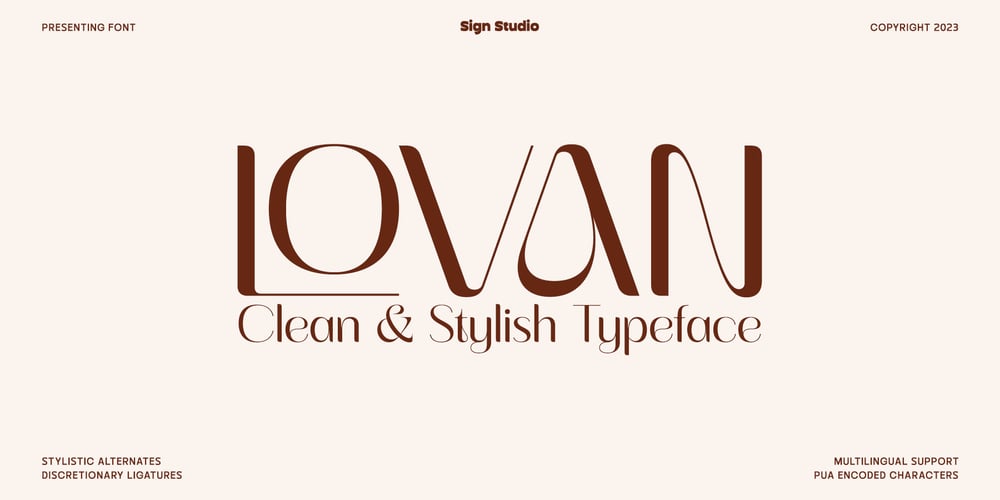
Lovan
Lovan font
Lovan Font Family was designed by Sugi Yanto and published by Sign Studio. Lovan contains 1 styles and family package options. Lovan will bring an elegant, romantic and warm feeling of love to your design project. Equipped with a choice of Alternative Characters and Discretionary Ligatures, all of which are PUA Encoded. Lovan will be a versatile font because it can be used as a Display Font and is still good for writing text.